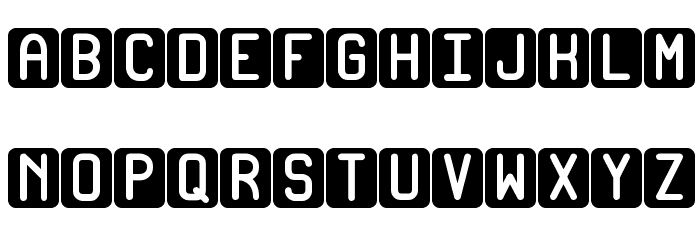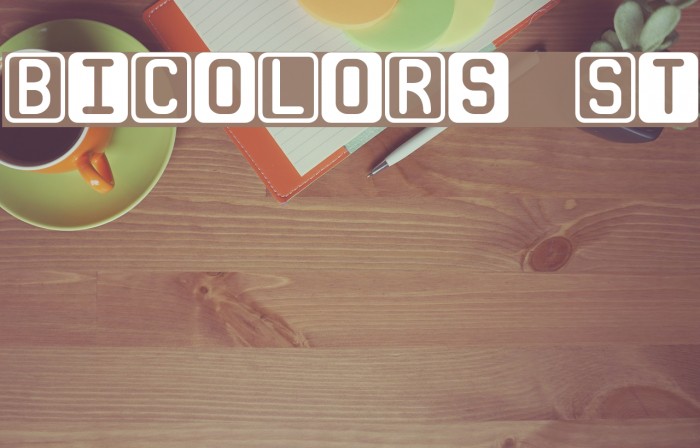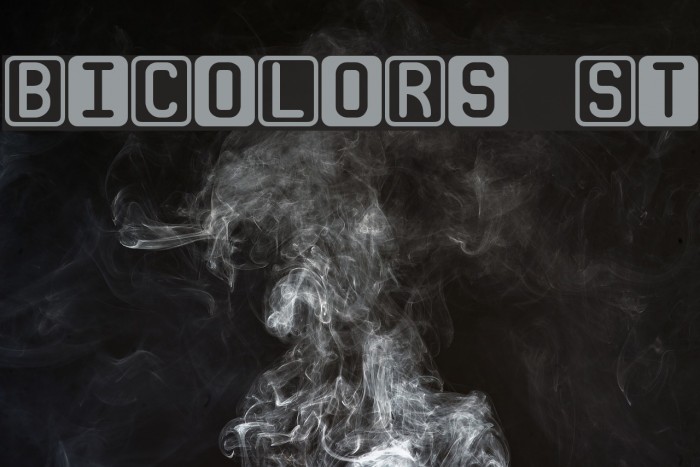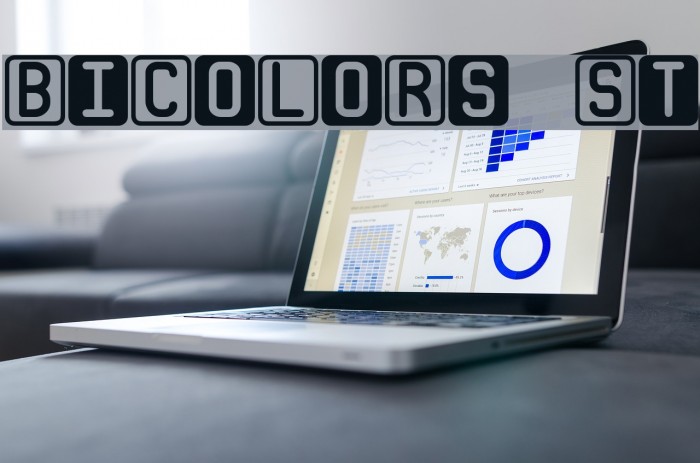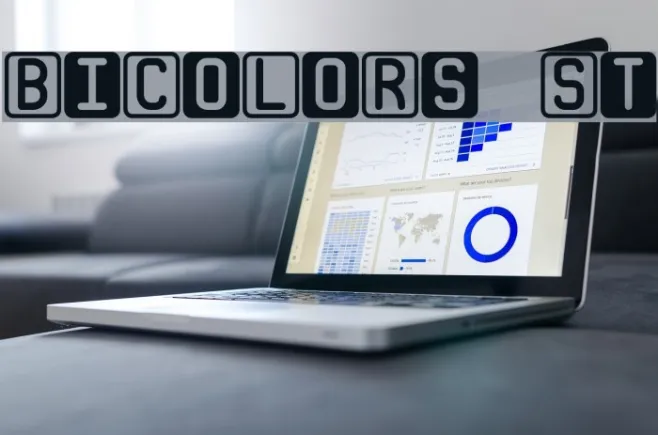
BiCoLoRs St Font
This font features a bold, geometric style with uppercase letters enclosed in rounded rectangles. The design alternates between outlined and filled versions, creating a striking visual contrast. The characters are uniform in size and shape, emphasizing a modern and structured appearance. The font's clean lines and distinct forms make it highly legible, while the alternating styles add a playful and dynamic element. This unique combination of outlined and filled characters offers versatility for various design applications.
A bold, geometric font with alternating outlined and filled uppercase letters.
- Proposed Projects: Ideal for branding, posters, and modern digital designs where a bold statement is needed.